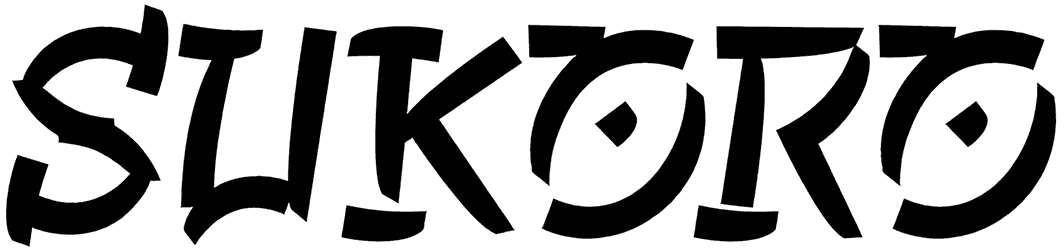
Sukoro Font
If you are looking for a ninja font with a natural feel and unique pattern, you should take a look at Sukoro. It has a distinctive display, and uppercase letters contain edgy lines. This font doesn’t support numbers and most punctuation. It will be a perfect option for logotype designs, food banners, movie titles, party events, and advertising projects.